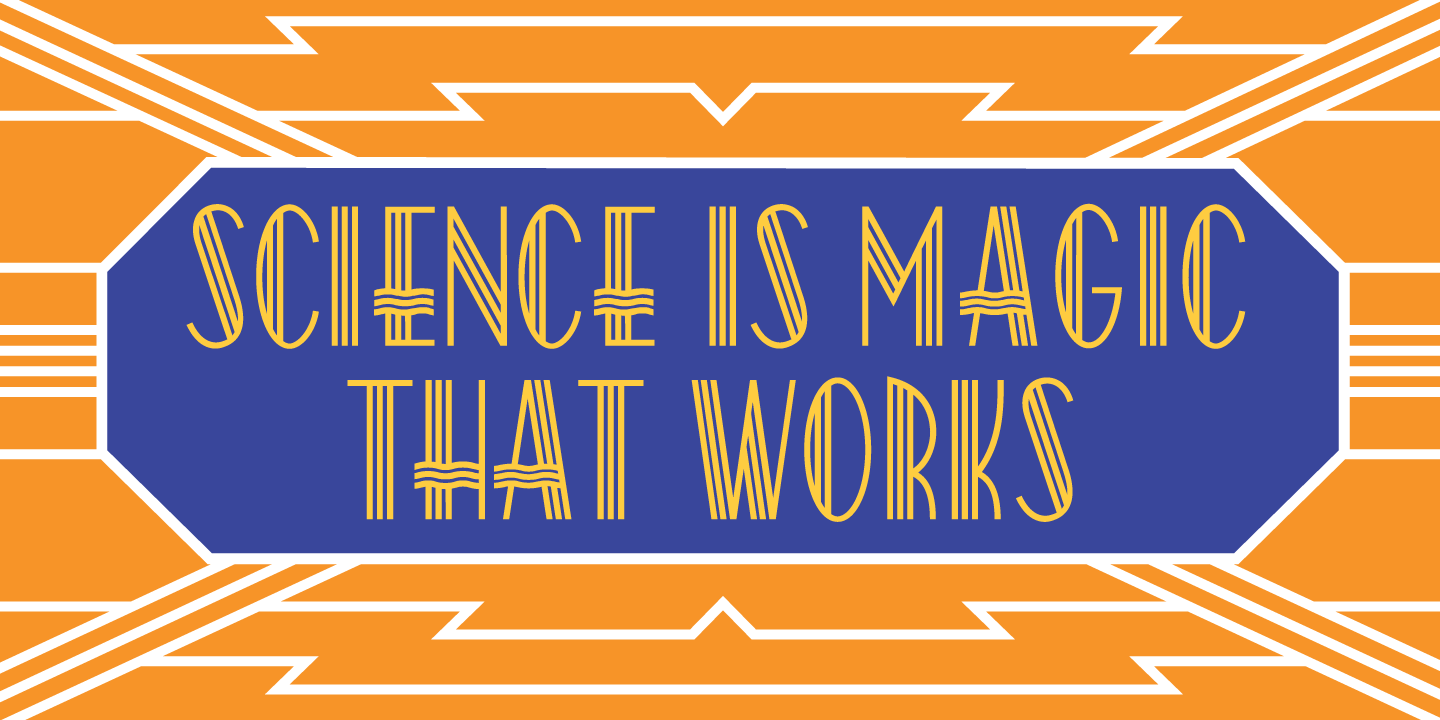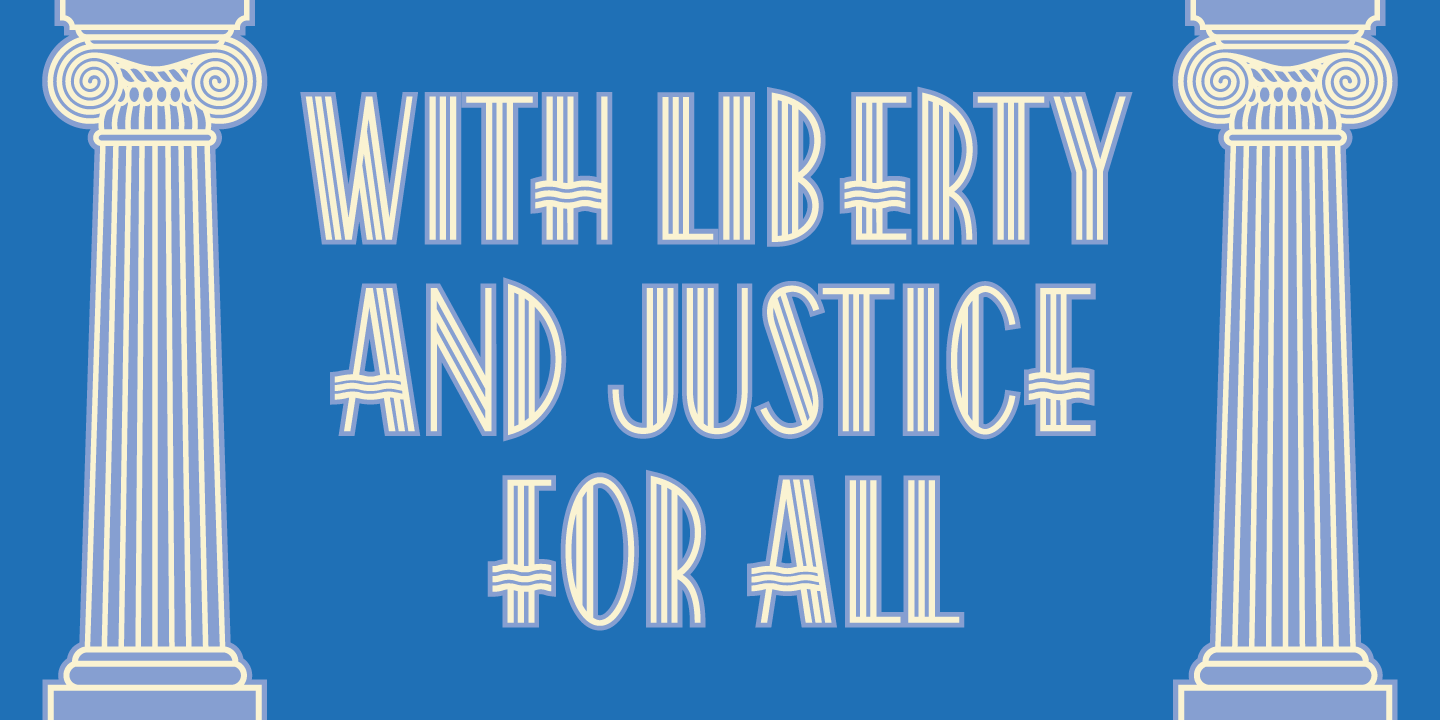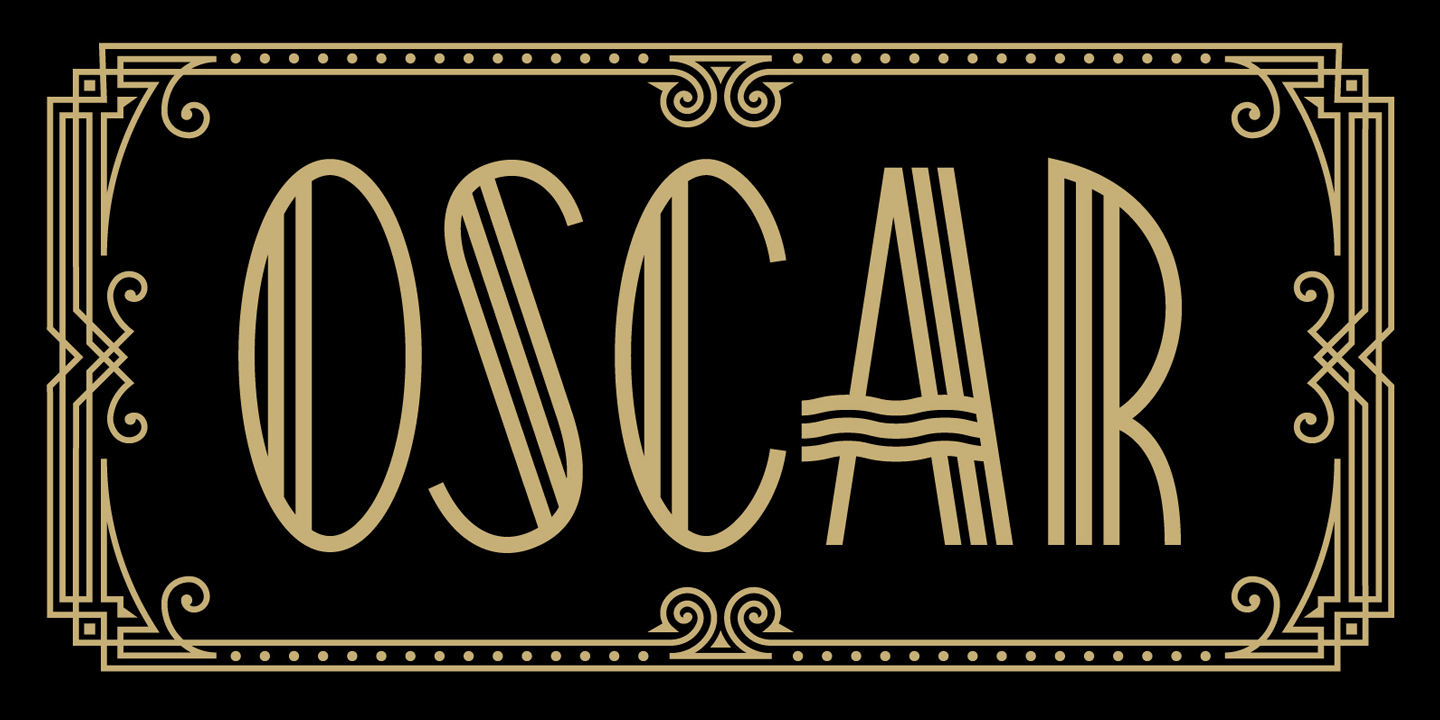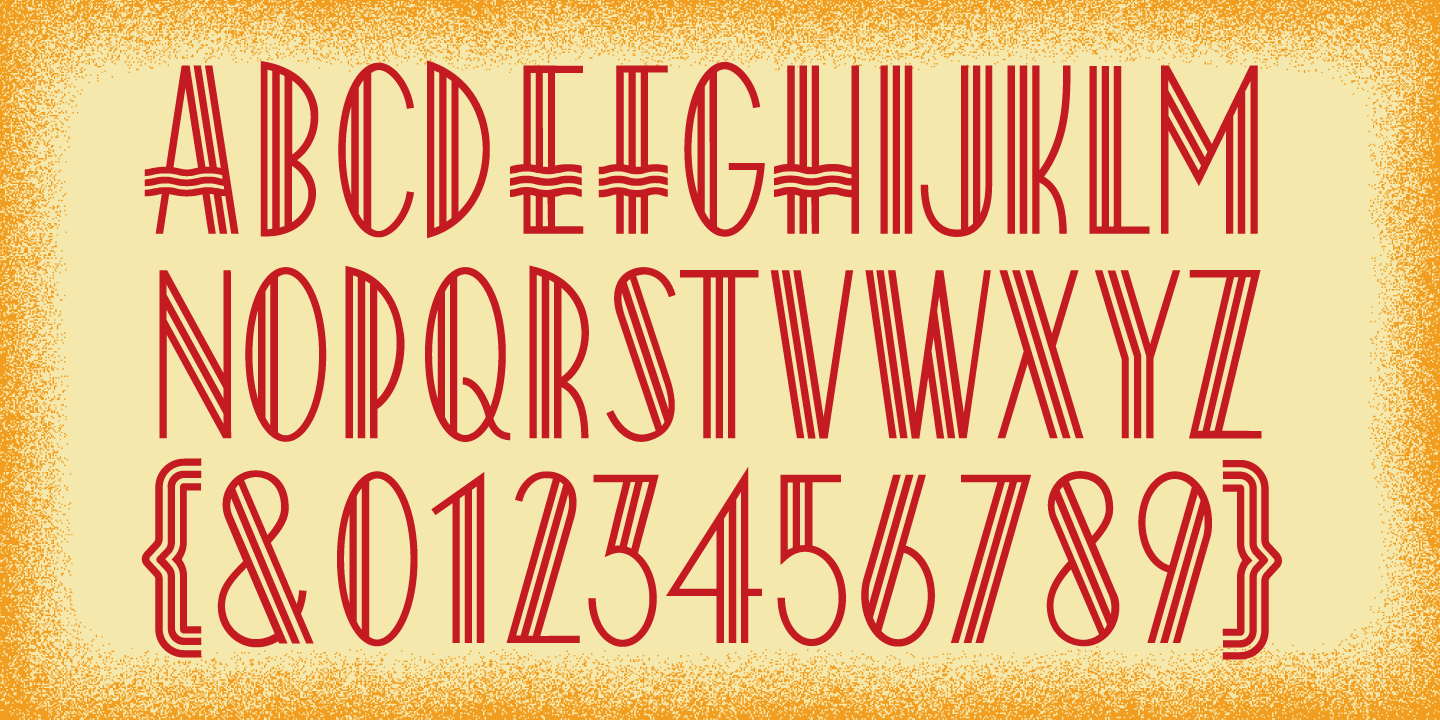
Oscar
About Oscar
Inspired by the elegance and sophistication of Hollywood's Golden Era, Oscar is a lyrical nod to the pinnacle of cinema achievements, the Academy Awards. Its slim, graceful features are accentuated by undulating triple waves. Delicate yet study, it…